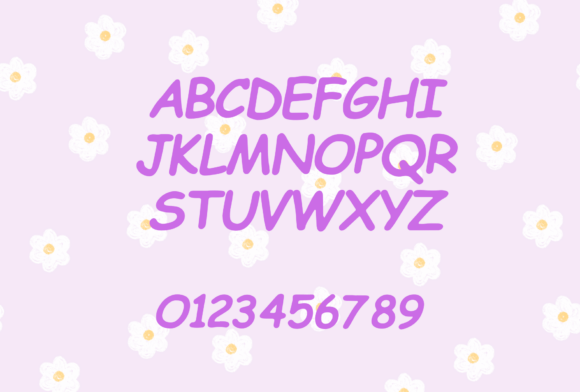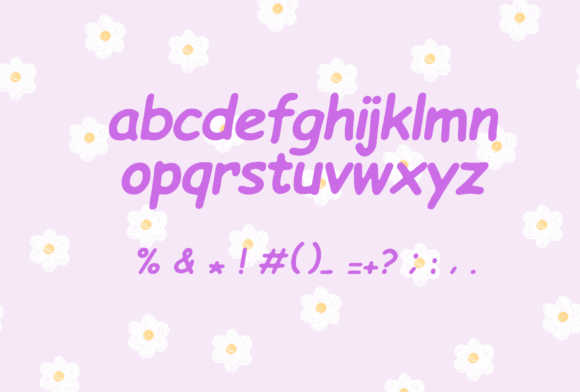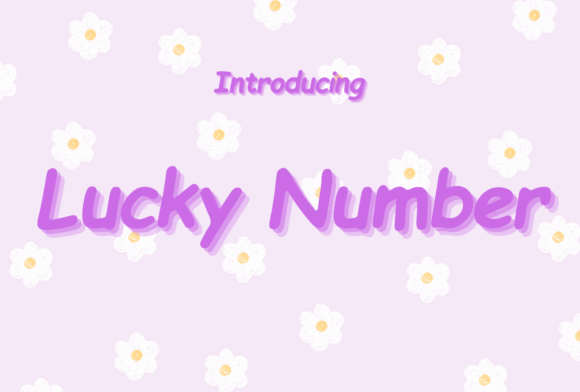
Introduction to Lucky Number Font
Lucky Number is a neat handwritten font, perfect for digital note-taking.
This versatile font works great for various projects, including Procreate, blog posts, logos, branding, digital planners, invitations, greeting cards, photo albums, decorations, and more It also supports multiple languages and adds a cute, personal touch to any design, especially on iPads and GoodNotes.
Lucky Number Font offers exceptional quality and versatility, making it a valuable addition to your design toolkit. Whether you’re creating for personal projects or commercial use, Lucky Number Font delivers professional results.